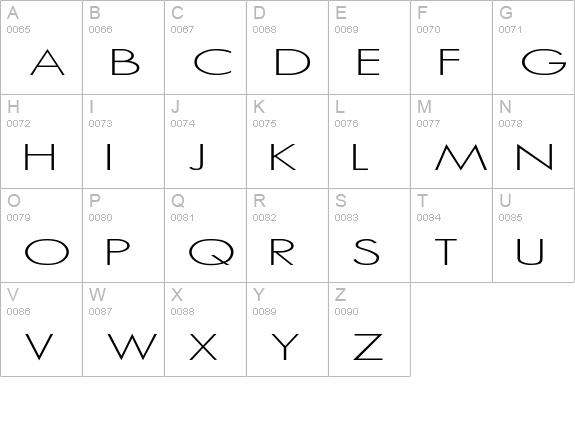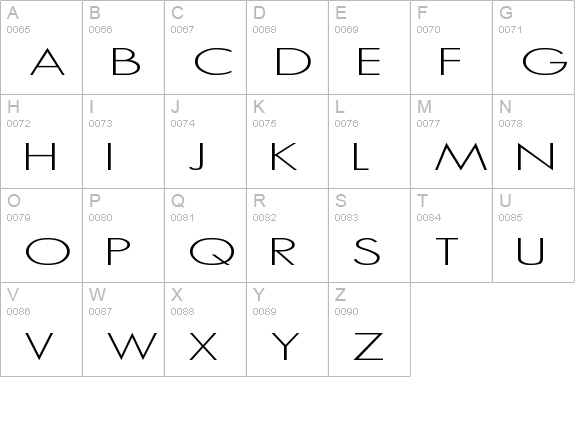
Micro-Serif Font Details
Micro-Serif font is a modern and elegant typeface that exudes sophistication and style. Its delicate serifs create a sense of refinement, making it perfect for projects that require a touch of class. Whether you're designing a wedding invitation, a business card, or a magazine layout, Micro-Serif font will elevate your work to the next level. The clean lines and subtle curves of this font make it highly versatile and easy to read, ensuring that your message gets across loud and clear. With its timeless appeal, Micro-Serif font is suitable for a wide range of design applications, from branding to editorial design. Best of all, Micro-Serif font is completely free to download at FontsMarket.com. This means you can add this stylish typeface to your font collection without spending a dime. Don't miss out on the opportunity to enhance your designs with the timeless elegance of Micro-Serif font – download it today and start creating beautiful typography that stands out from the crowd.